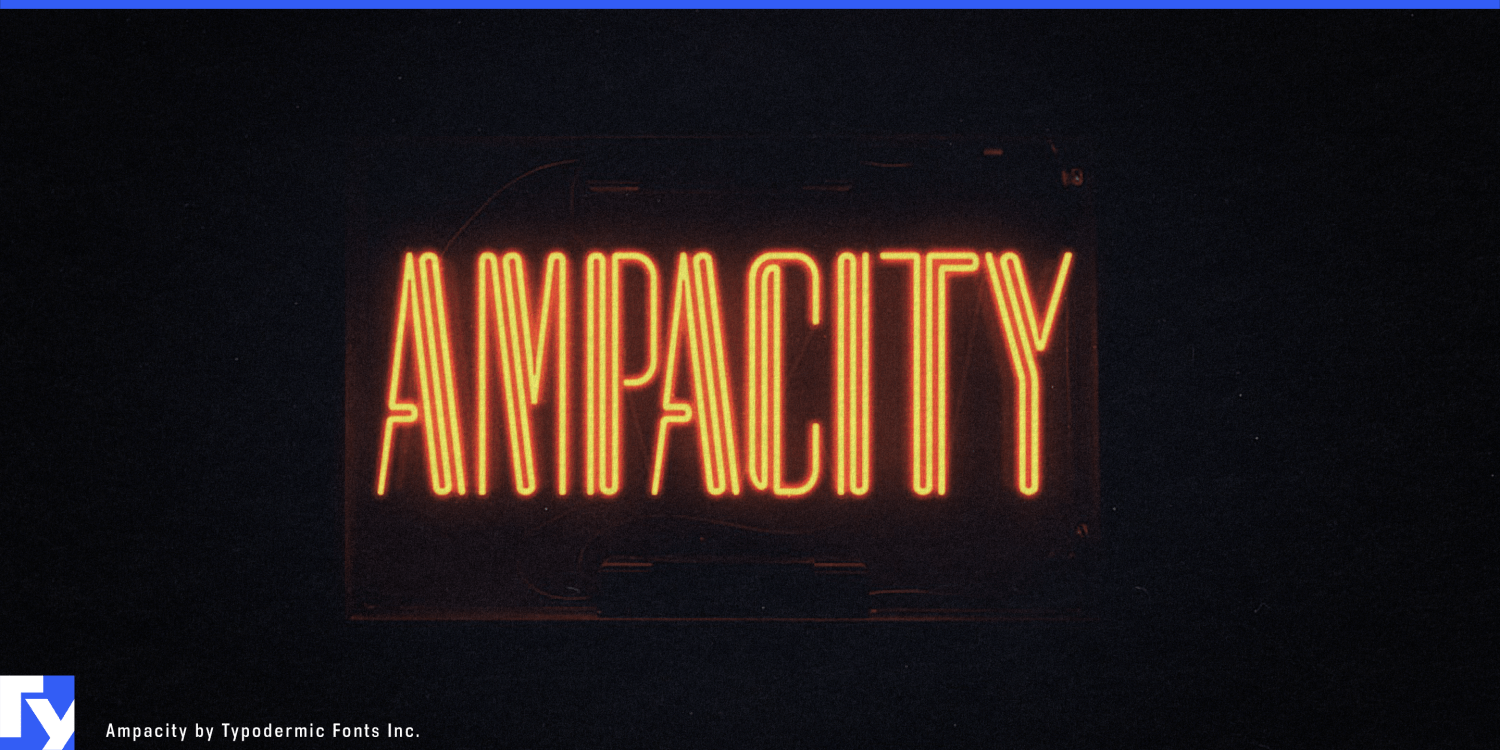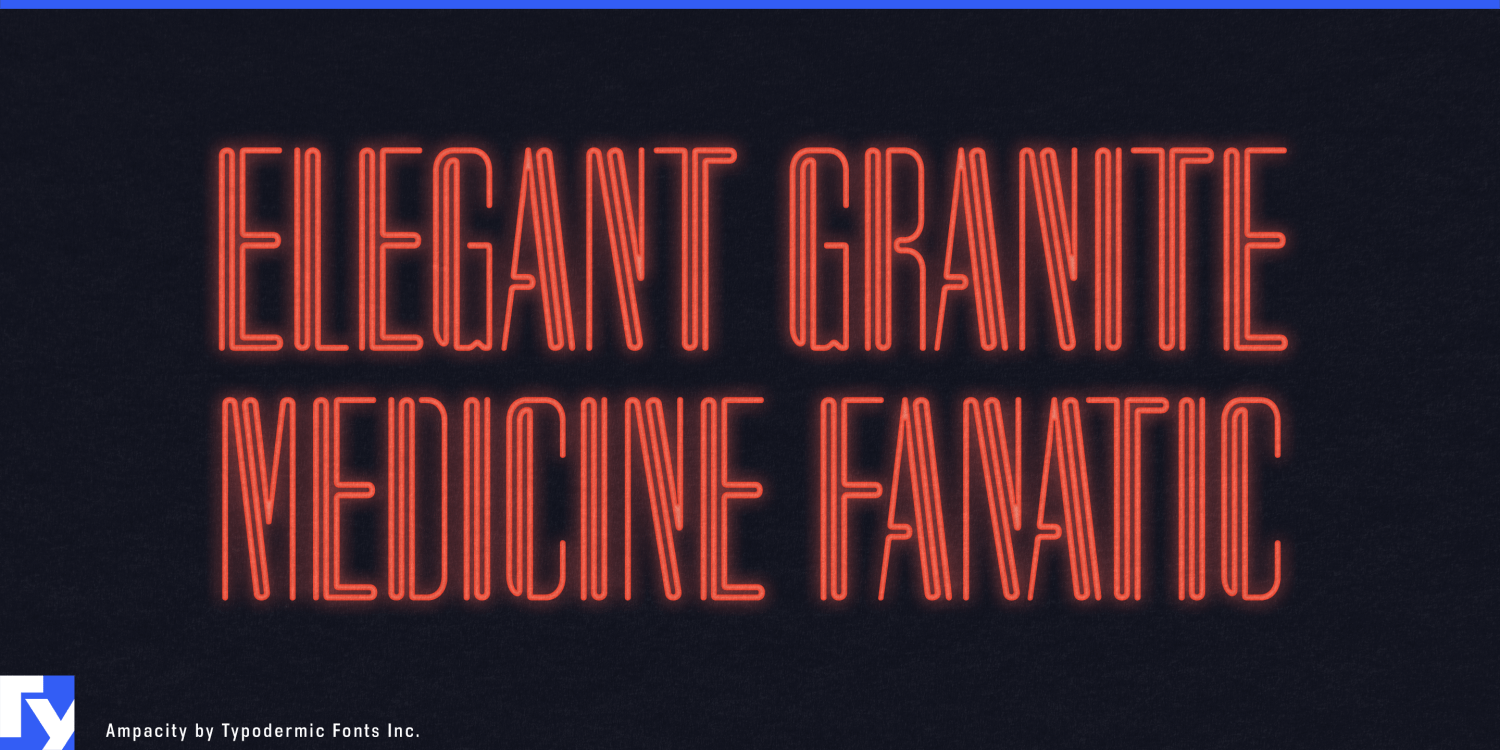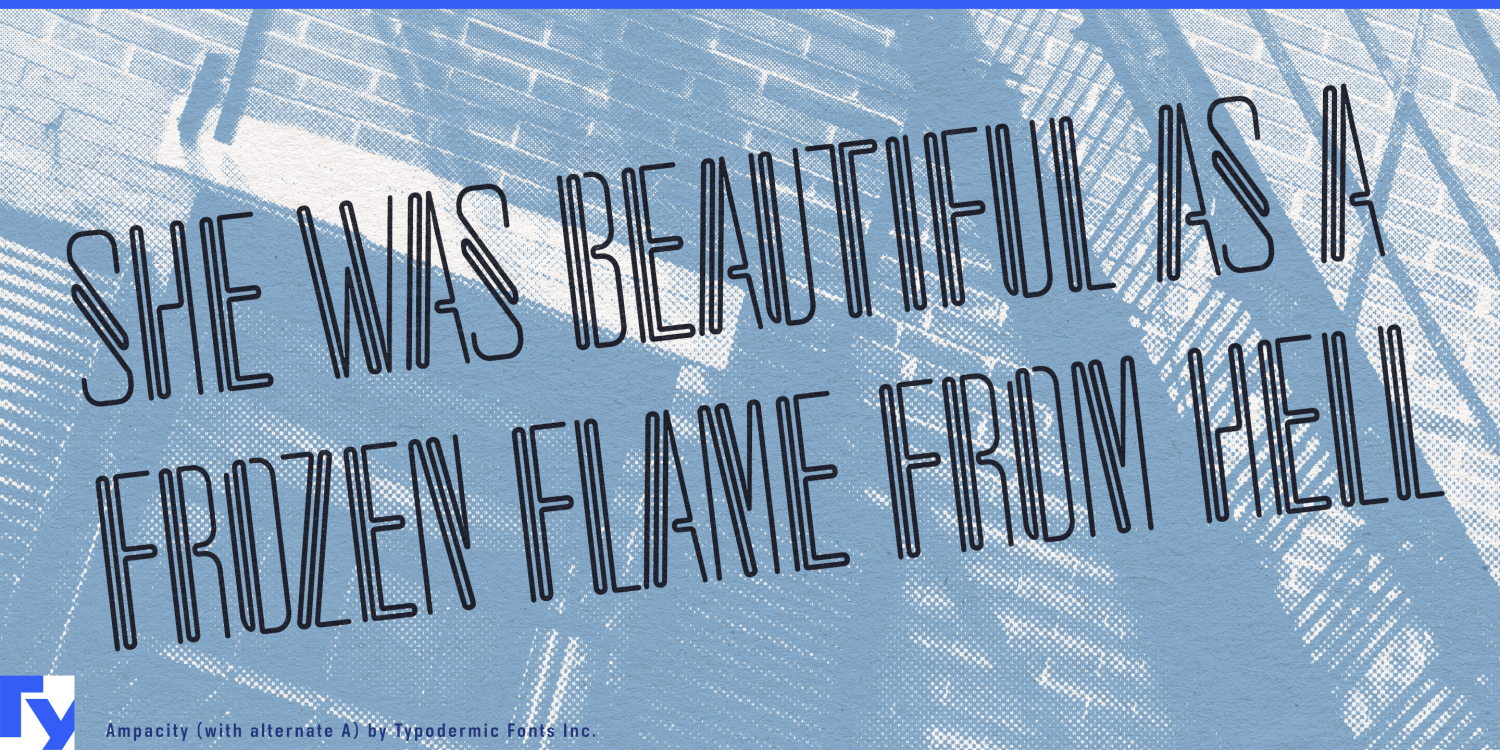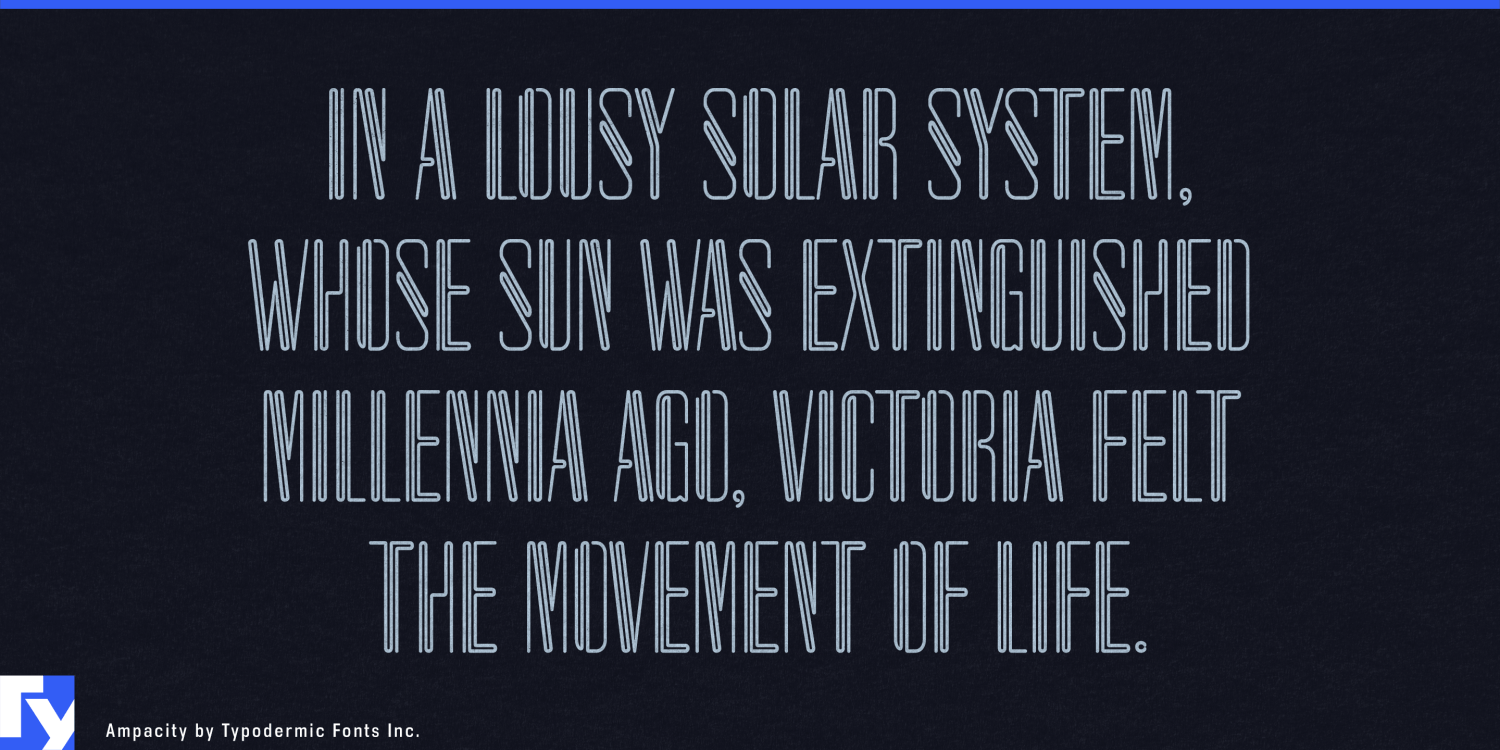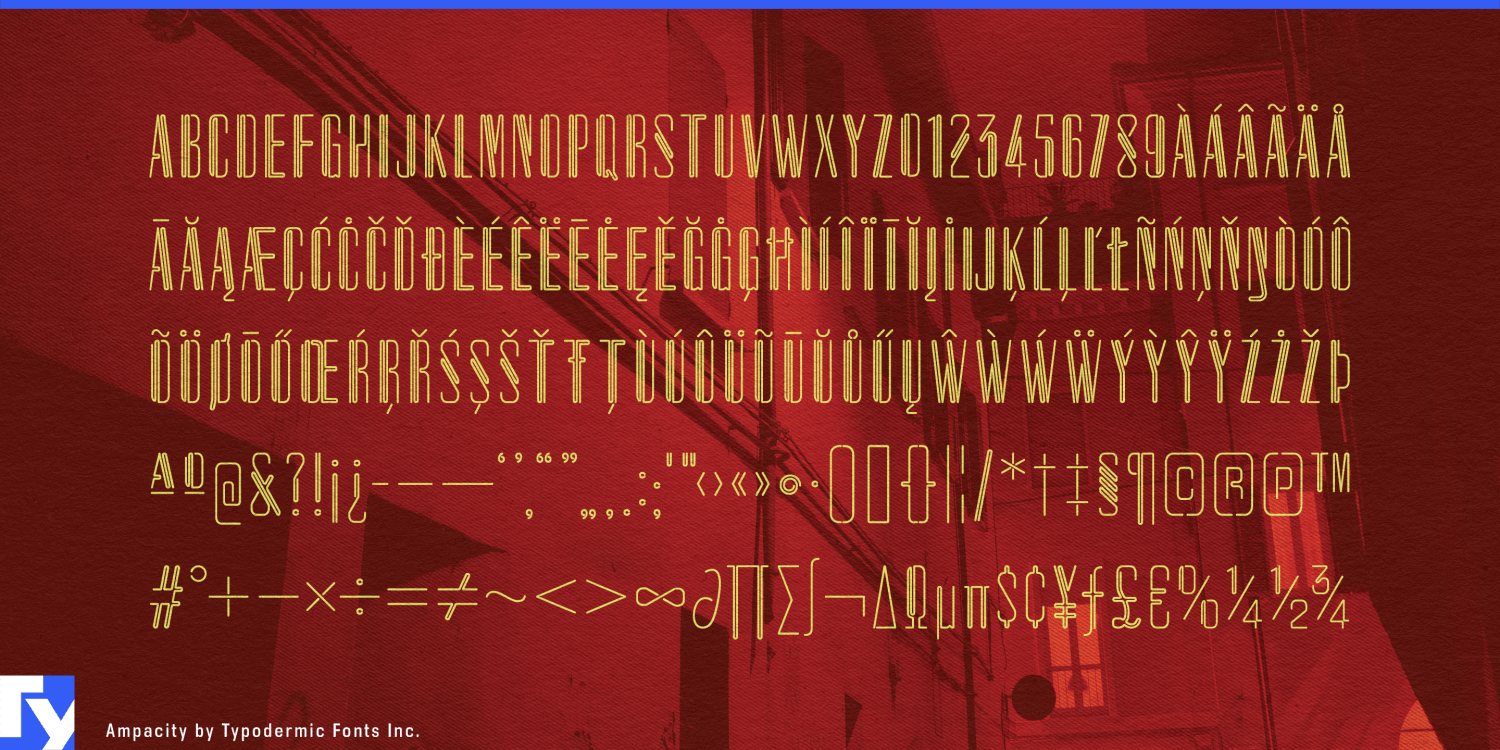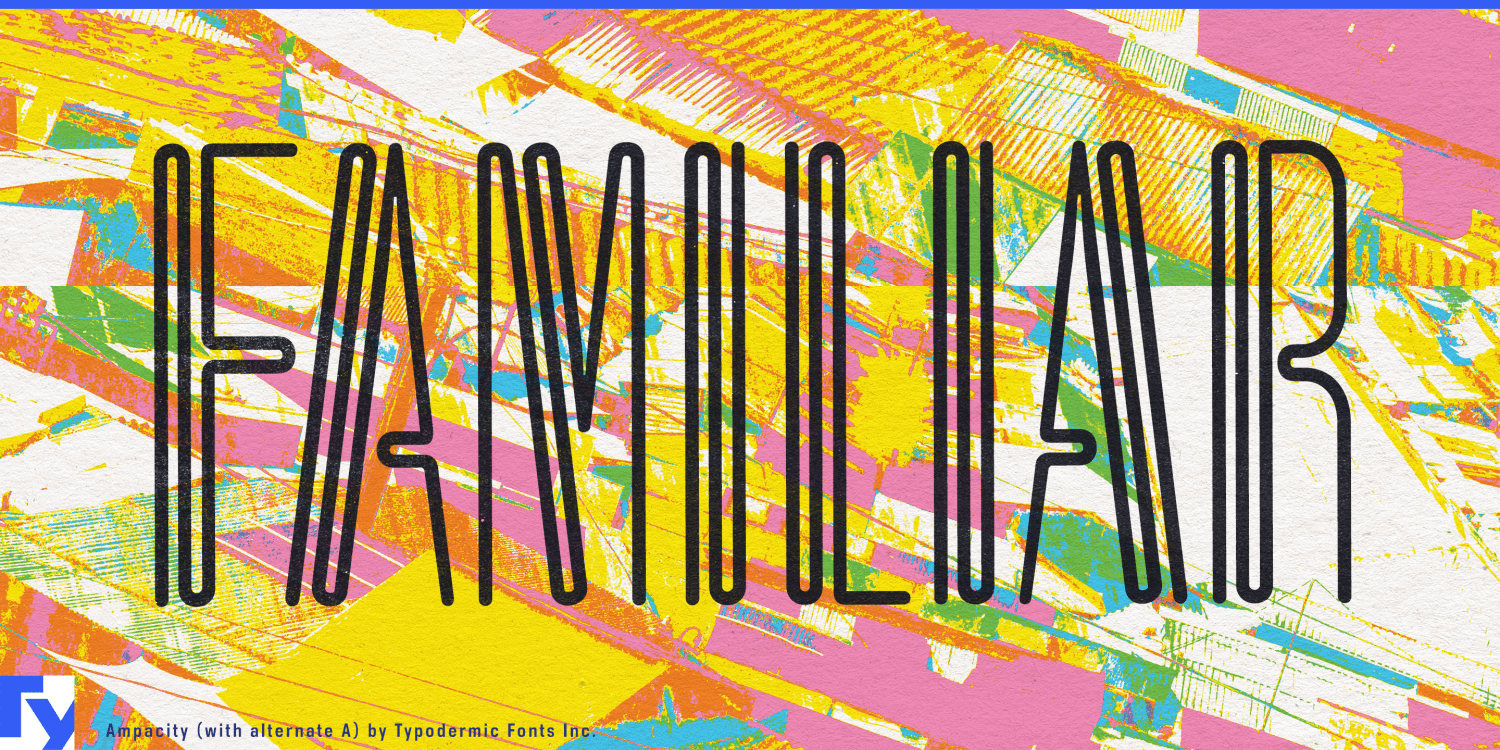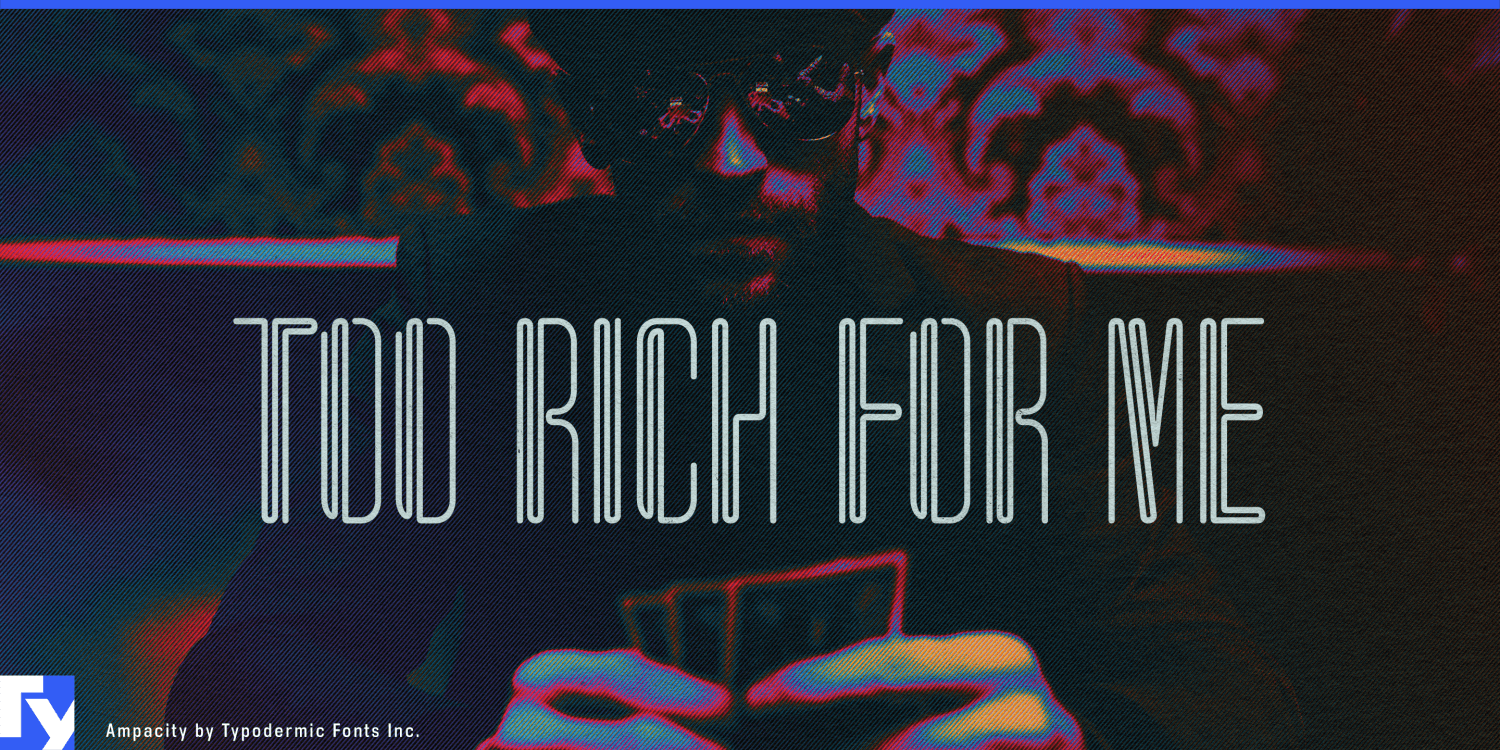
Ampacity
Illuminated typography can go wrong quickly. Traditional Art Deco lettering can make a new venue look like a period recreation; script neon can drift toward diners and novelty signage; generic tube-outline fonts often look more like an effect than a typeface. Ampacity offers a more controlled alternative. Its tall, compact forms combine Deco structure with the visual rhythm of bent light, suggesting electricity, glow, and nighttime atmosphere without turning the whole project into retro neon.
That makes Ampacity especially useful for upscale nightlife. Hotel cocktail bars, rooftop lounges, supper clubs, jazz rooms, casino lounges, cabaret venues, listening bars, and late-night restaurants can use it for venue names, illuminated entrances, cocktail-menu headings, residency titles, event series, window graphics, wall installations, and nighttime campaigns. Its narrow proportions help short names make a large impression on façades, columns, vertical signs, menu covers, and other spaces where horizontal room is limited.
Design-led hospitality extends the same idea to boutique hotels, resort lounges, cruise venues, observation decks, entertainment districts, rooftop complexes, and mixed-use destinations. Ampacity can name a lounge, rooftop, seasonal light event, night-market program, or after-hours restaurant while a quieter companion family handles wayfinding and practical information.
The same visual language has a natural place on premium electric heating products. Architectural infrared panels, sculptural space heaters, electric fireplaces, radiant patio heaters, heated mirrors, towel warmers, and other design-led heating systems can use Ampacity for model-series names, fascia lettering, packaging, showroom graphics, specification covers, and launch campaigns. Its linear construction can echo heating elements, radiant bars, glowing controls, and visible warmth without making the product feel like industrial electrical equipment.
Architectural lighting provides a neighboring territory. Decorative fixtures, ambient-lighting systems, illuminated mirrors, hospitality lighting collections, and other products built around visible light can use Ampacity for collection names, product families, showroom displays, and exhibition graphics.
Fashion, fragrance, jewelry, eyewear, and beauty fit most convincingly when illumination is part of the presentation. Fragrance launches, jewelry events, cosmetics pop-ups, fashion-week afterparties, eyewear campaigns, and temporary retail installations can carry their event or collection names across glowing walls, storefront windows, invitations, launch films, and social campaigns.
Ampacity grew from another Led Zeppelin-inspired experiment, but the result has moved well beyond rock-reference typography. What remains is a compact Art Deco display face with an electrical pulse: narrow enough for the architectural and product surfaces where illuminated lettering often has to live, structured enough to avoid neon kitsch, and polished enough for places and products designed to look their best after dark.